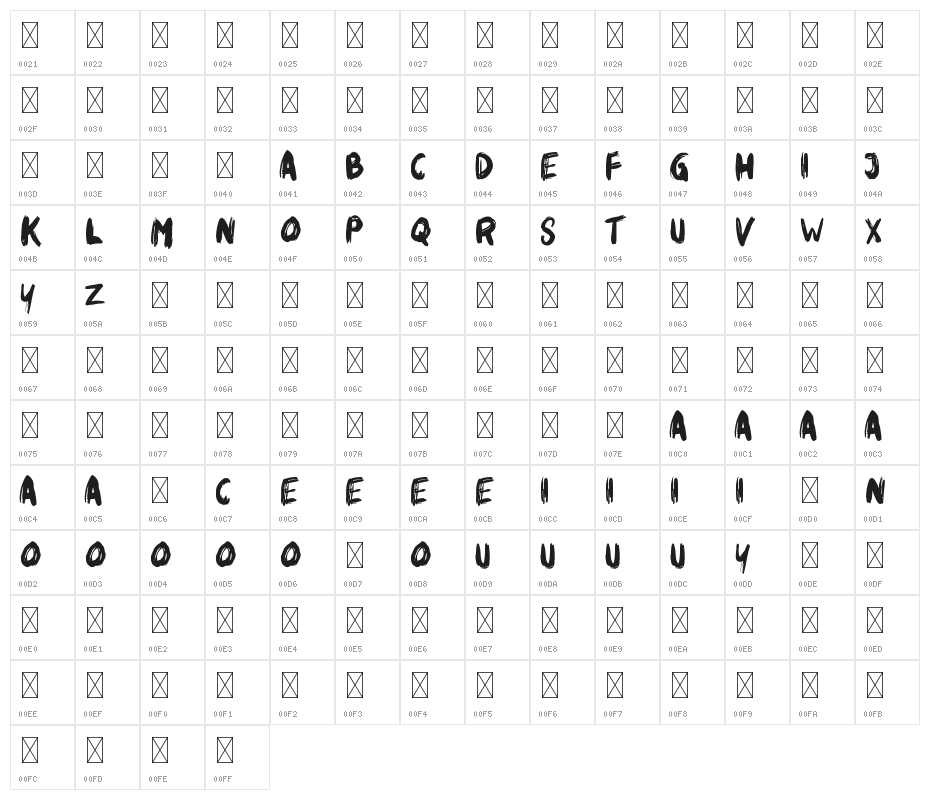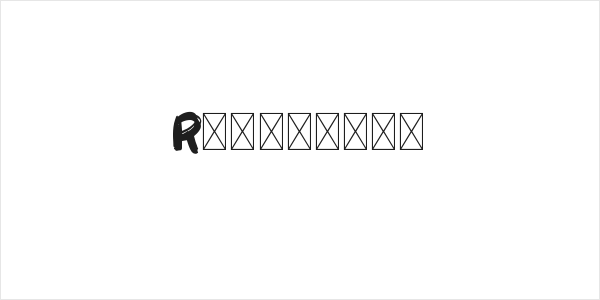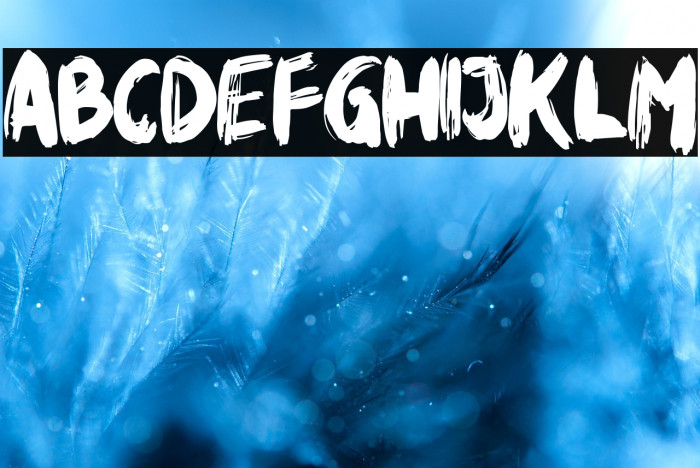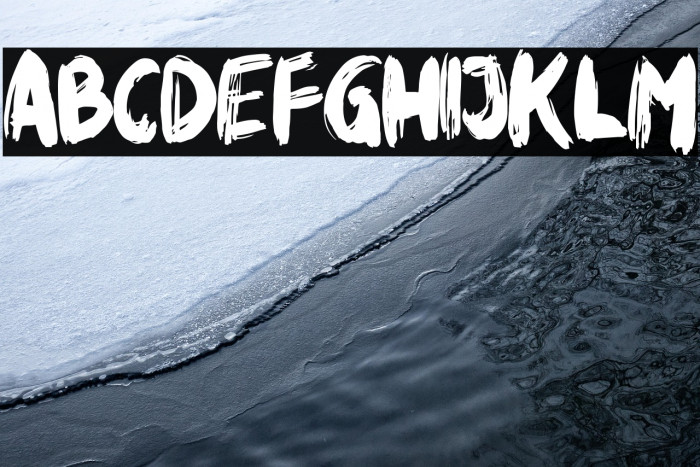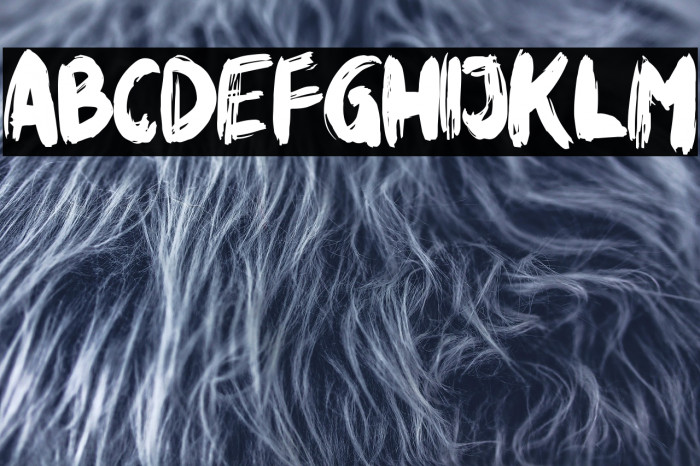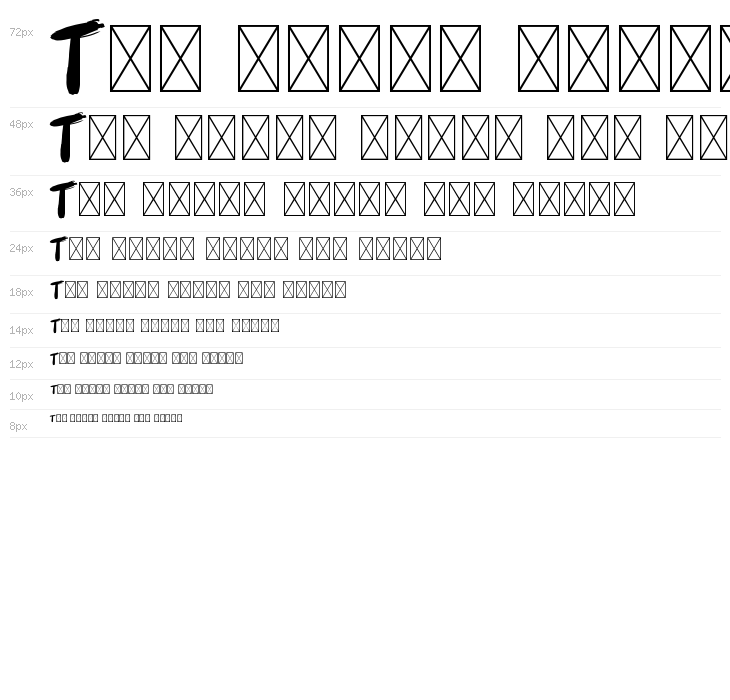
Rikabrush Font
Rikabrush Description
This font features a bold, brush-like style with a dynamic and energetic appearance. The uppercase letters display a hand-painted effect, characterized by irregular strokes and varying thicknesses that give it a raw and artistic feel. The letters have a slightly slanted orientation, adding to the sense of movement and spontaneity. The overall design is expressive and eye-catching, making it suitable for projects that require a strong visual impact. The font's unique texture and bold presence make it ideal for creative and artistic applications.
| Proposed Projects | Ideal for posters, album covers, branding, and any project requiring a bold artistic touch. |